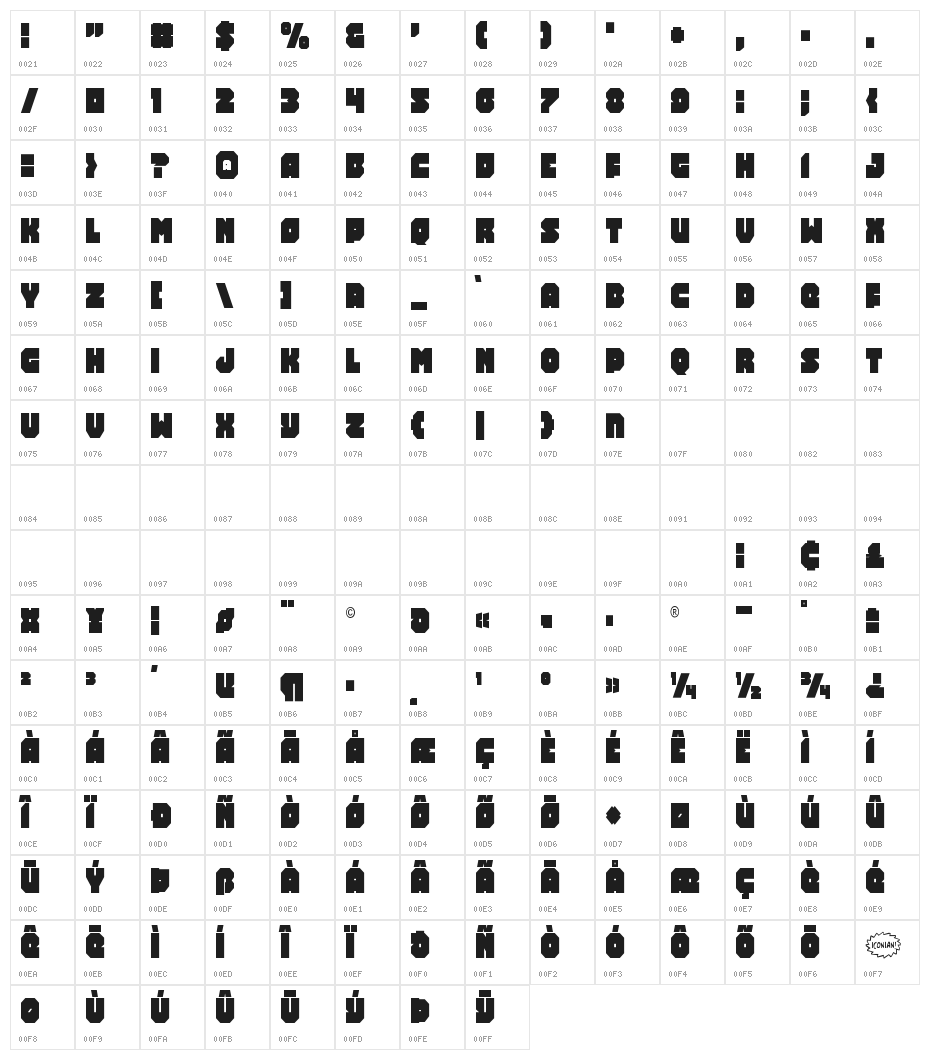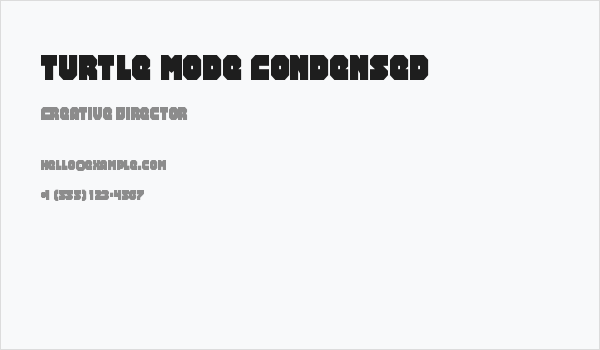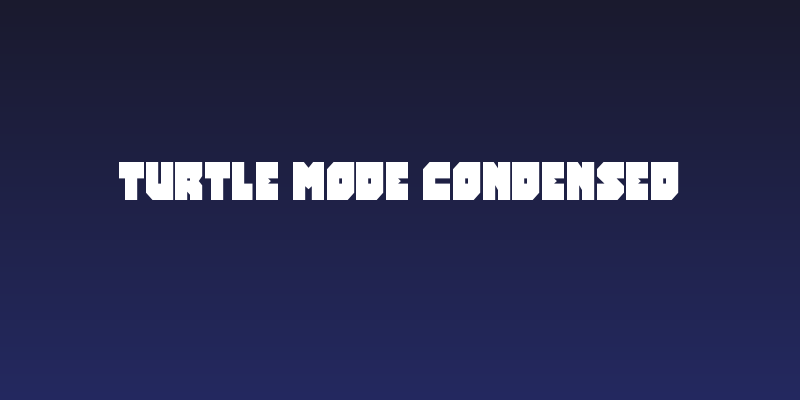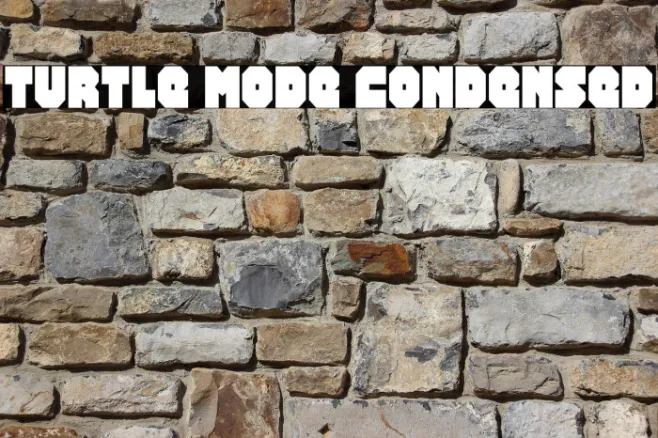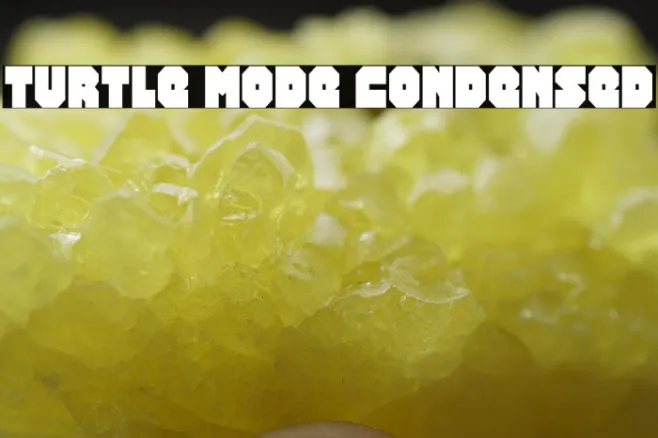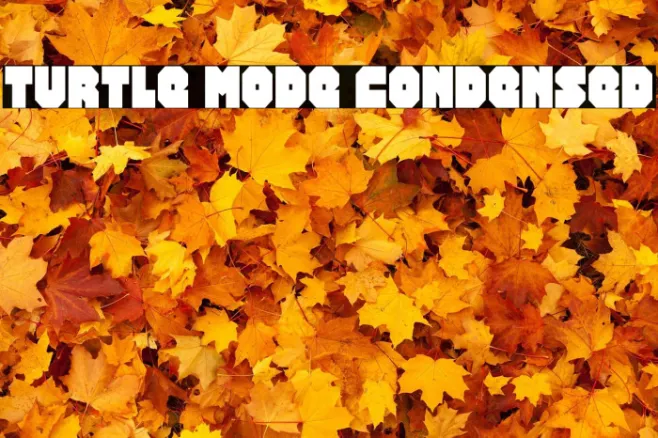
Turtle Mode Condensed Font
Turtle Mode Condensed Description
This font features a bold, geometric design with a strong presence. Each character is constructed with sharp angles and straight lines, creating a blocky and robust appearance. The uppercase and lowercase letters maintain a consistent style, emphasizing uniformity and strength. The numbers and special characters follow the same design principles, ensuring a cohesive look across all glyphs. The condensed nature of the font allows for efficient use of space, making it suitable for impactful headlines or titles. Its distinct style is reminiscent of futuristic or industrial themes, offering a modern and edgy aesthetic.
| Proposed Projects | Ideal for futuristic branding, industrial-themed posters, video game titles, and bold headlines. |